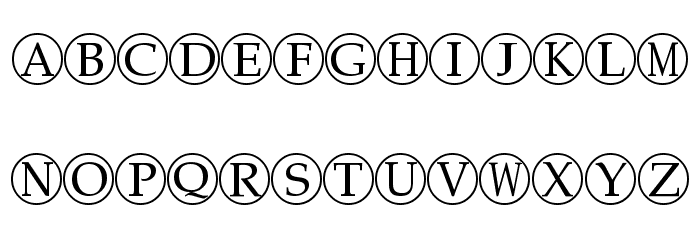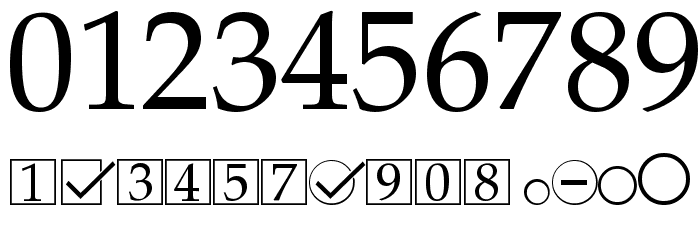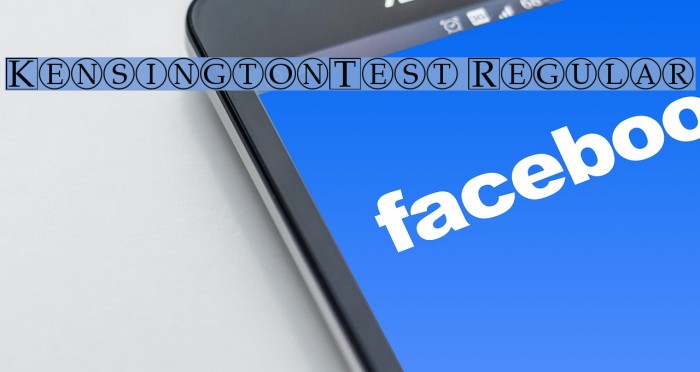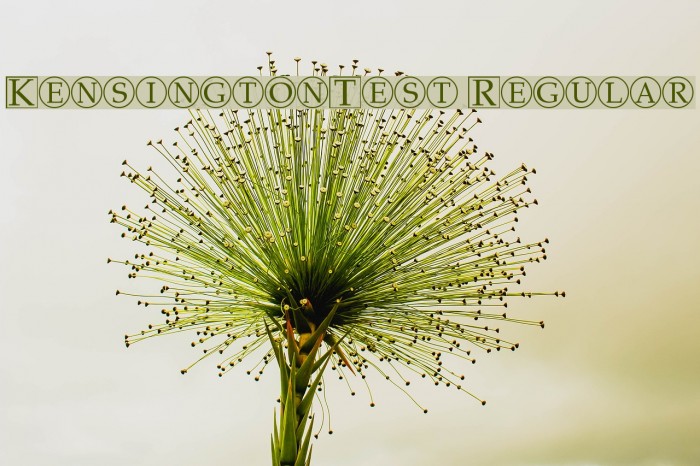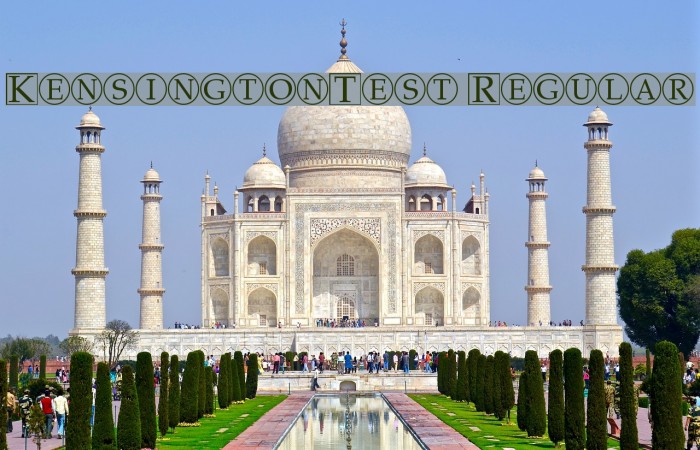
KensingtonTest Regular Font
This font features a classic serif style with a modern twist, characterized by its elegant and refined letterforms. The uppercase letters are enclosed in both square and circular frames, adding a unique decorative element. The numerals are bold and prominent, offering a strong visual presence. The special characters are creatively designed, incorporating check marks and geometric shapes, which enhance the font's versatility. The overall design is balanced, with a harmonious blend of traditional and contemporary elements, making it suitable for a variety of design applications.
A classic serif font with decorative frames and bold numerals.
- Proposed Projects: Ideal for branding, editorial design, packaging, and decorative print materials.
- Category: Serif
- Overall Style: Classic
- Use Case: Headlines, Logos, Decorative elements